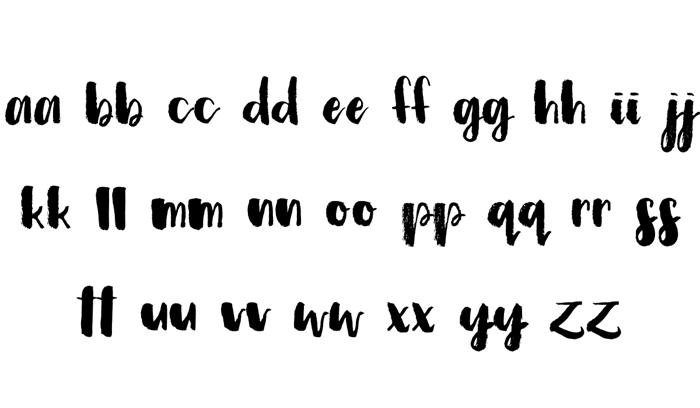
Simple Dry Brush Font
I am proud to offer this free dry brush script font. Originally drawn with a Pentel refillable art brush and carbon black ink.Please enjoy this free dry brush script. Lettered with a Pentel refillable brush pen, medium size, using carbon black ink.
Please add capitals!!!!!!!!!!!!!!!!!!!!!!!!!!!!